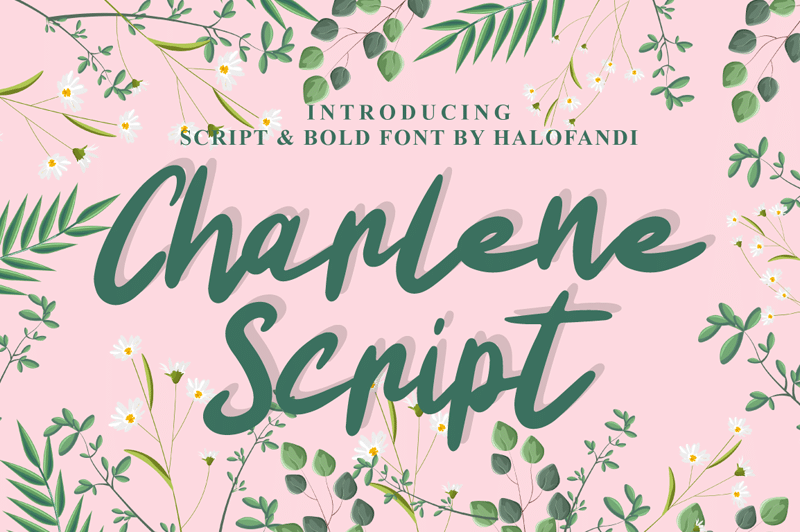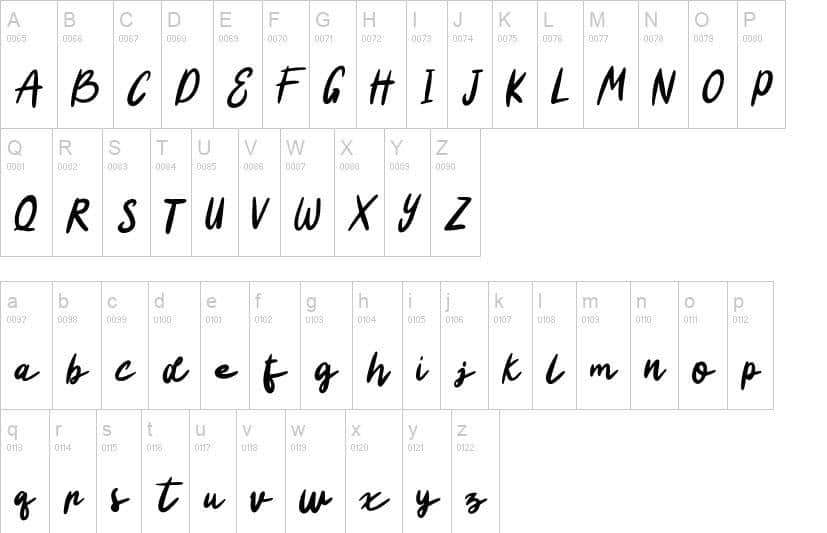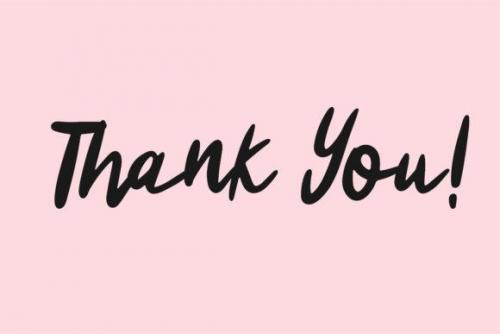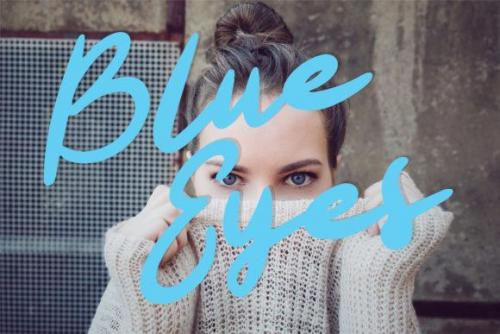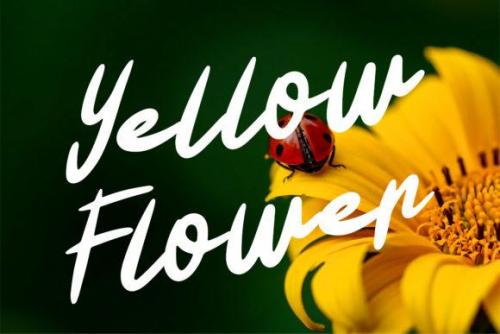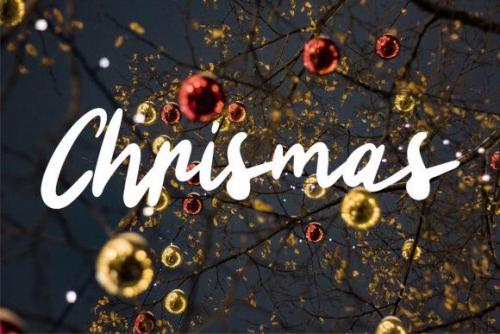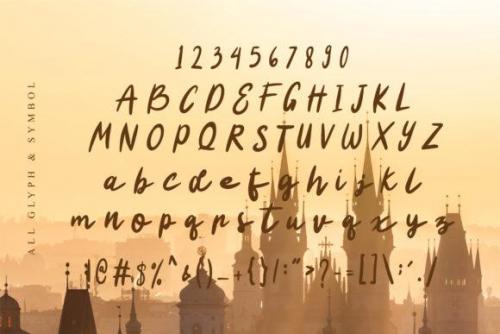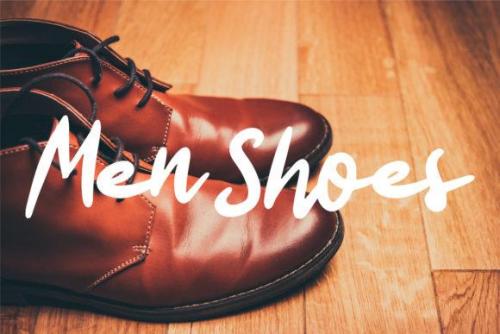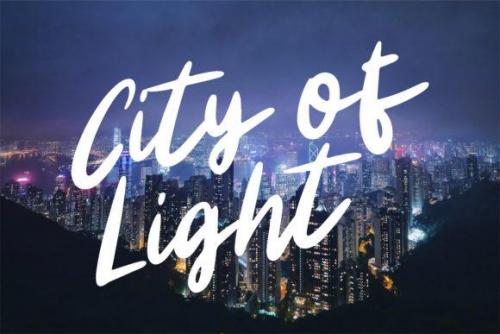
Charlene Script is a bold font that is suitable for use in various prints or digital media, suitable for the design of wedding invitations, brochures, leaflets and many more. Charlene is a cute and friendly handwritten font. Playful and a little bit quirky, this font is the perfect fit for all of your logos, branding, posters, and crafty DIY projects or whatever you want.
- Designer: halofandi